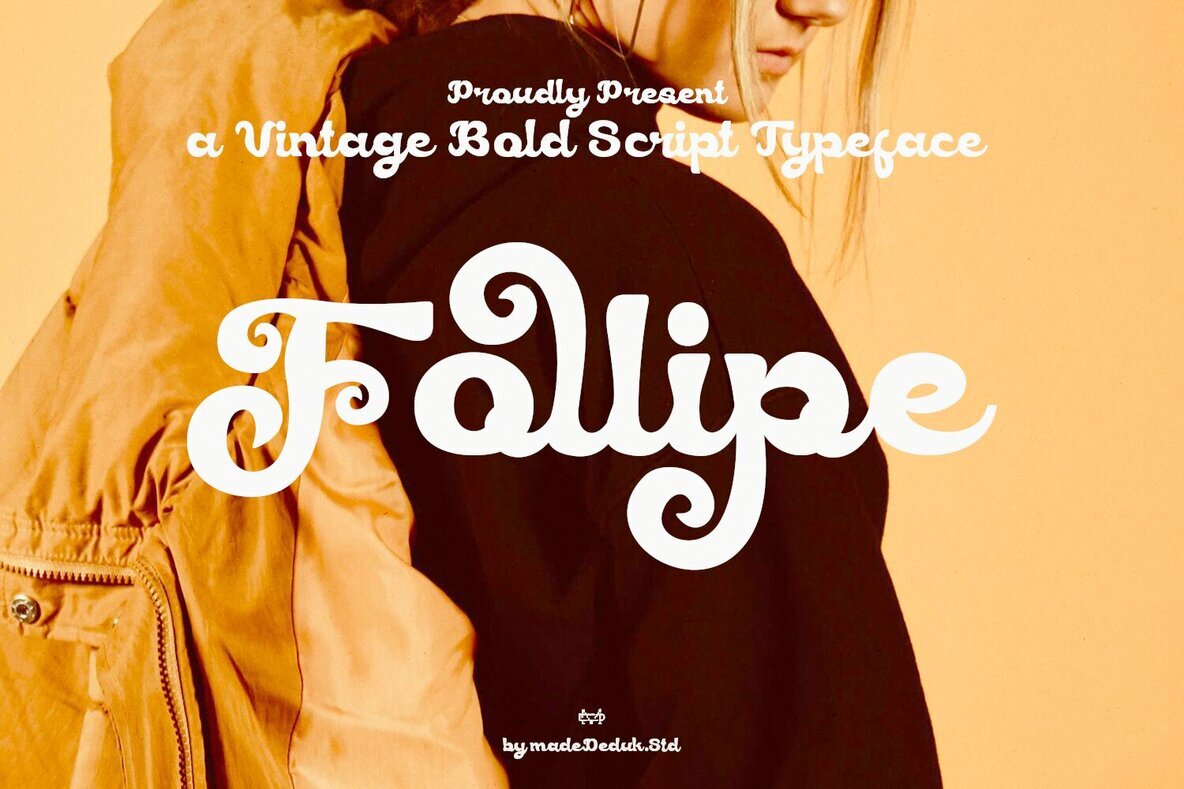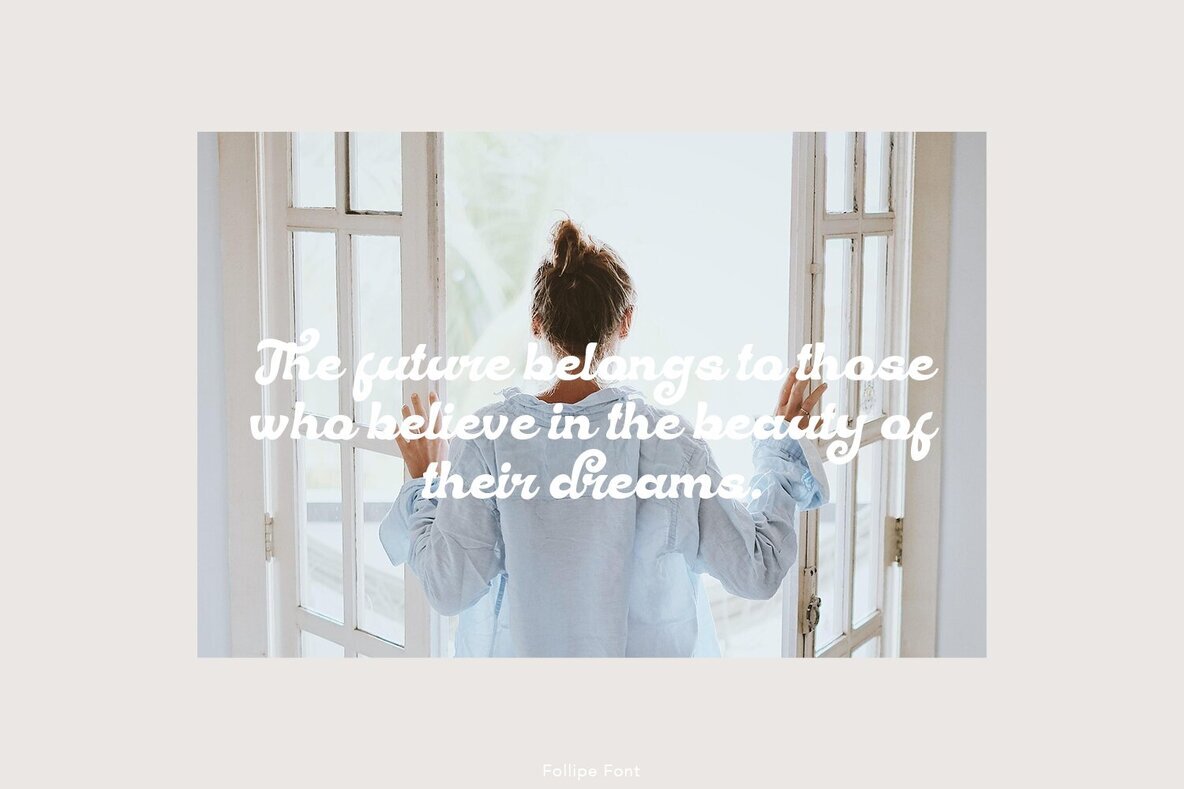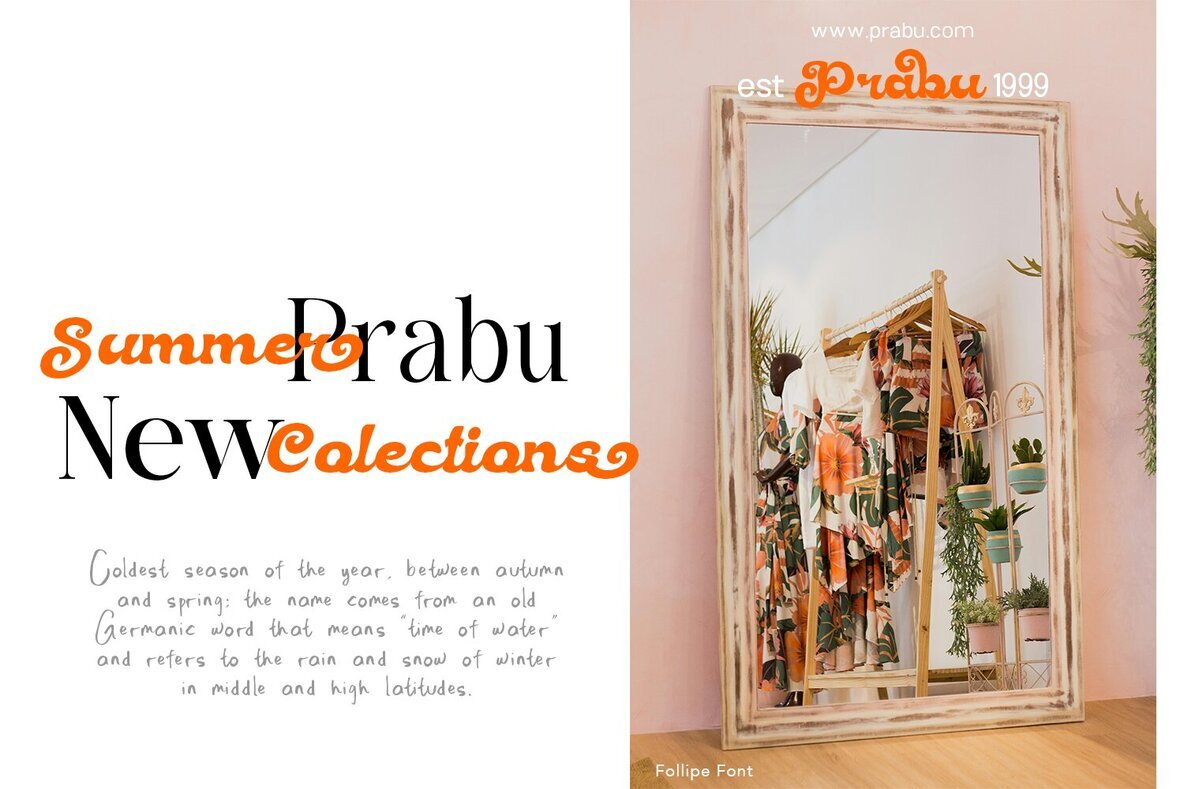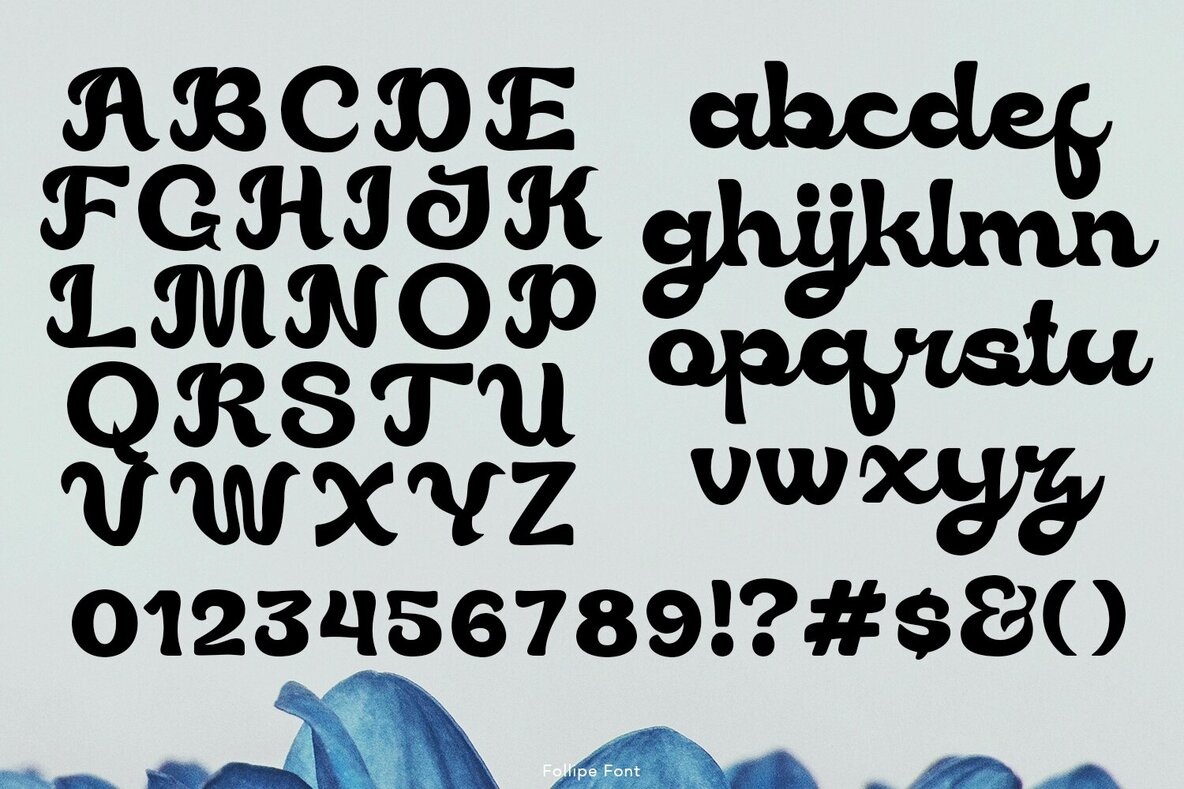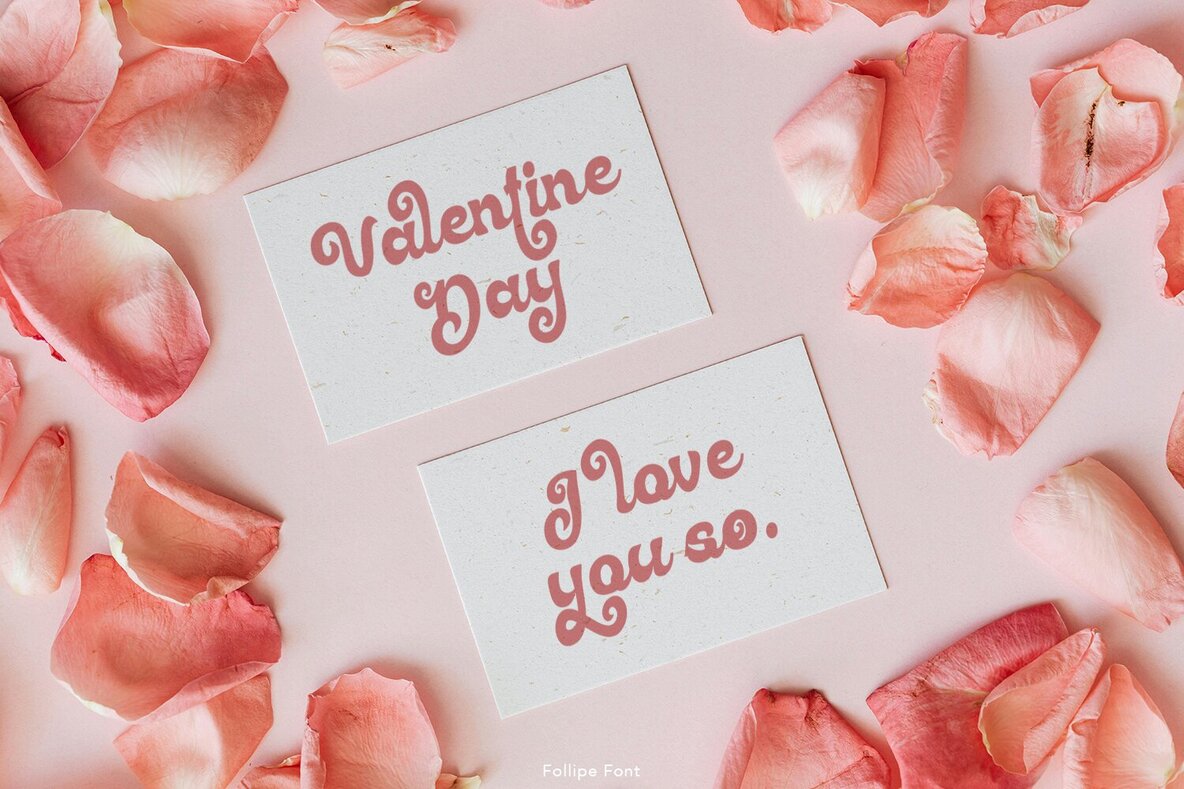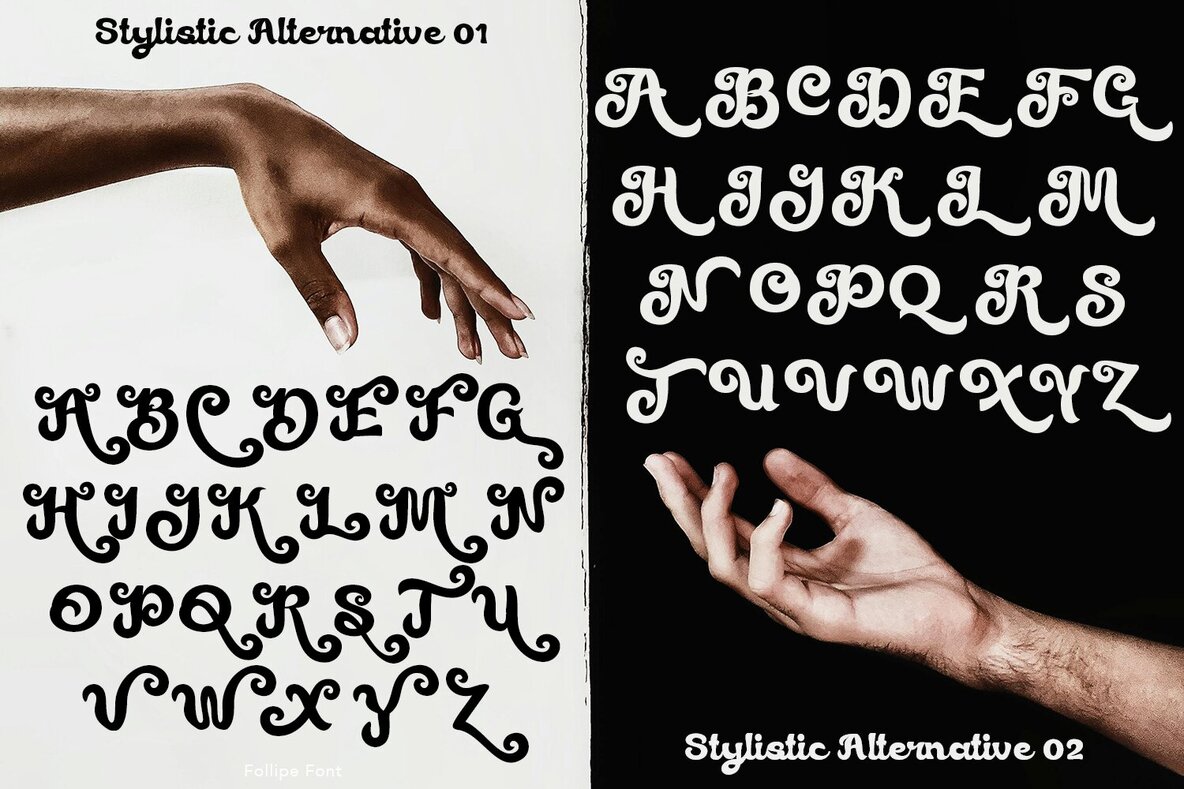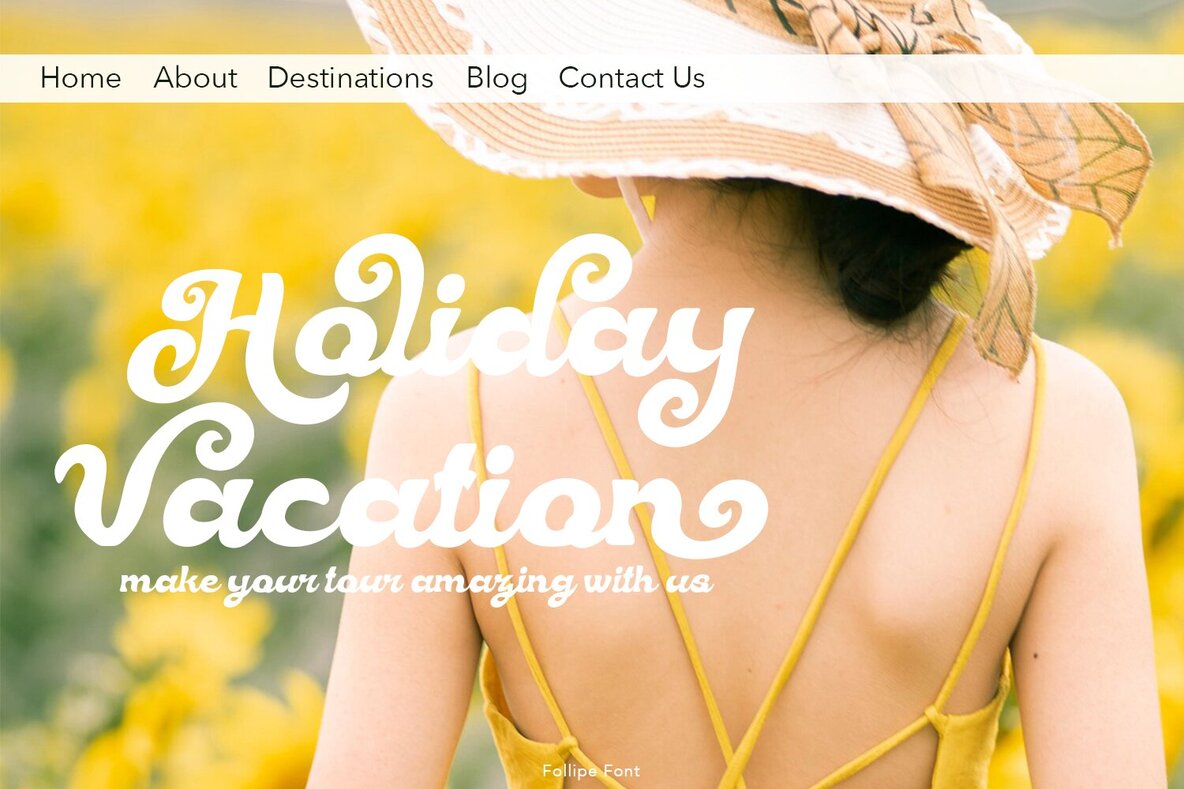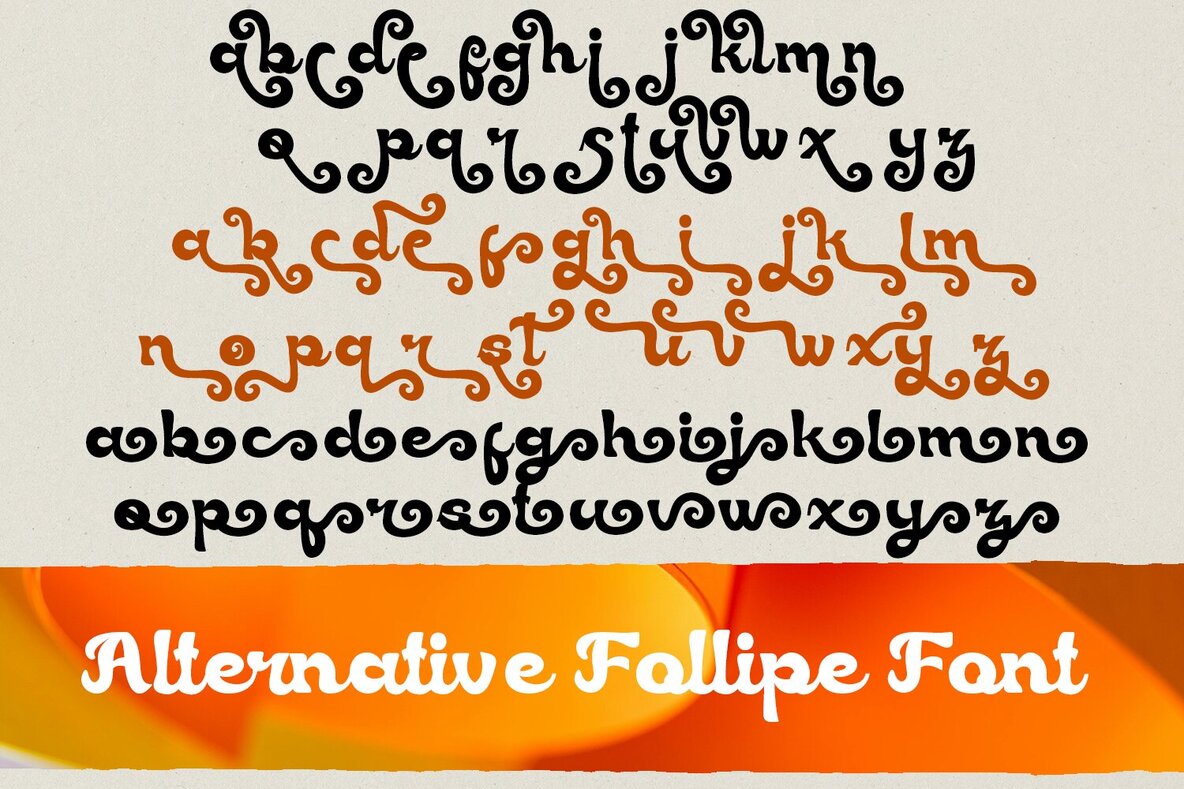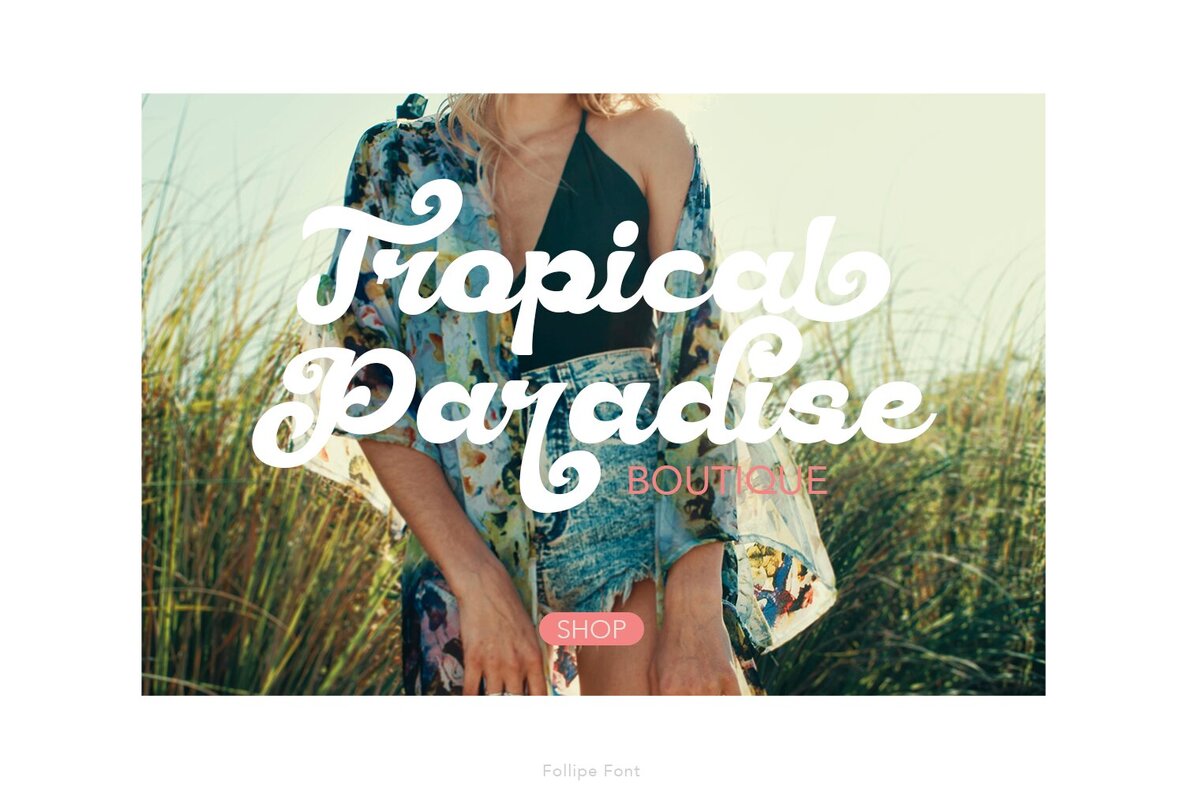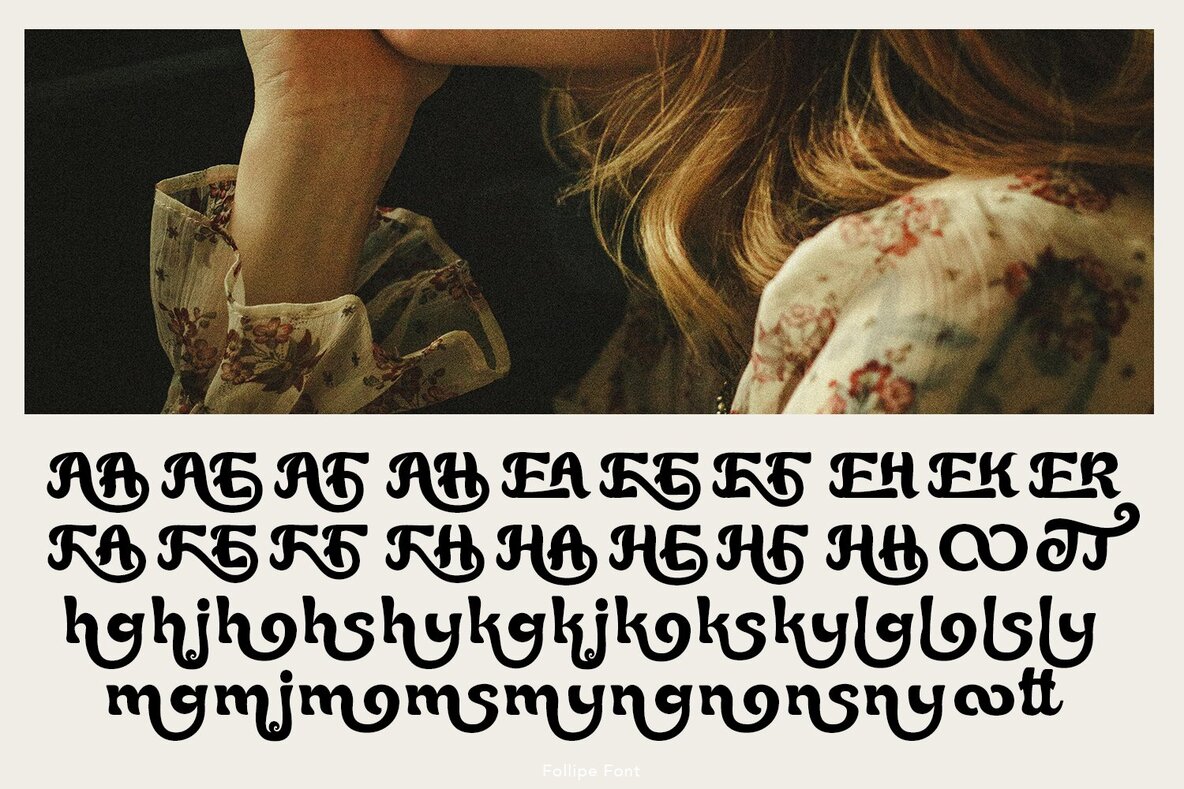
Follipe Font
Discover Follipe, a captivating groovy font inspired by the iconic styles of the 1980s. Featuring a playful curly design, this script font offers an abundance of alternatives and ligatures, enabling you to create rhythm and enhance readability across your projects. Follipe seamlessly combines groovy aesthetics with refinement, allowing your creativity to shine in any setting.Follipe: The Groovy 80s Script Font
Perfect for Diverse Applications